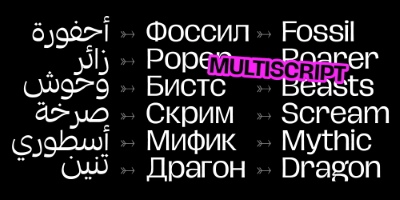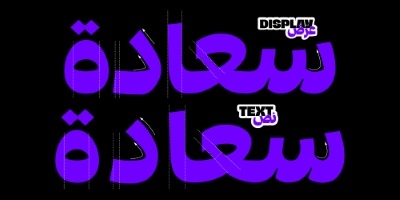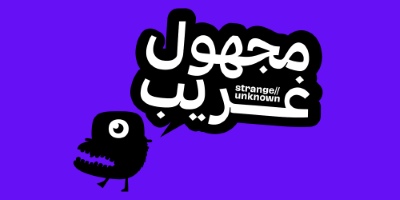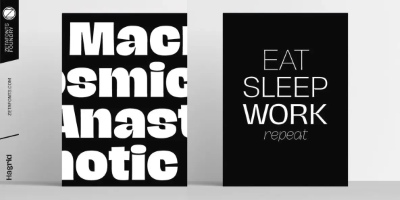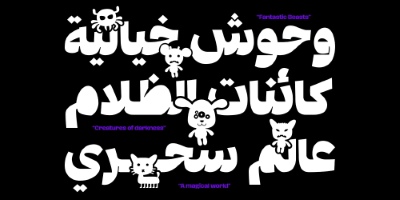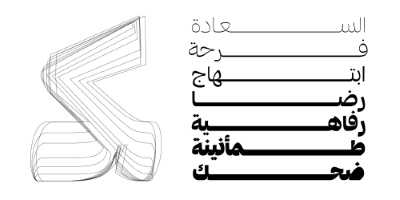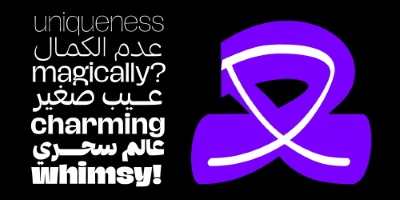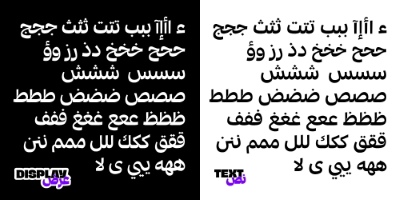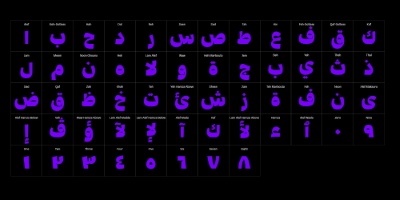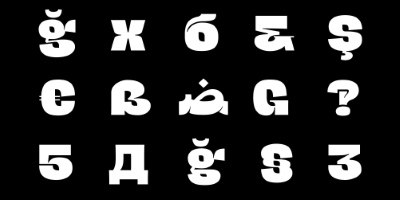
Hagrid SuperFamily - 71 Styles + 7 Variable Fonts
Hagrid - 71 Styles + 7 Variable Fonts Family
Hagrid is ideal for editorial, branding, and expressive typography projects
that embrace originality and typographic personality.
ARABIC 13 Styles + Variable | CYRILLIC 30 Styles + 2 Variables | LATIN 28 Styles + 4 Variables
• Cosimo Lorenzo Pancini designed Hagrid as a celebration of the expressive potential of grotesque letterforms when exposed to the the crypto-typographer’s love for the strange and the overlooked. Hagrid blends grotesque structure with calligraphic counterspaces, inverted contrast, and brutalist shapes to create a bold, impactful voice for both print and digital use.
• Originally released as a display family, Hagrid was expanded and redesigned in 2025 to improve readability and functionality. The updated Text family features refined proportions, and optimized spacing for long-form reading, while the Display family introduces subtle contrast in lighter weights and a new Black style with fully closed counterspaces for maximum visual impact.
• The family supports Extended Latin, Cyrillic, Greek, and Arabic scripts, with the Arabic set revised in collaboration with Murad Alsharaweb. OpenType features include positional numbers, discretionary ligatures and a playful "Monsters" stylistic set that transforms letters into expressive, creature-like forms.